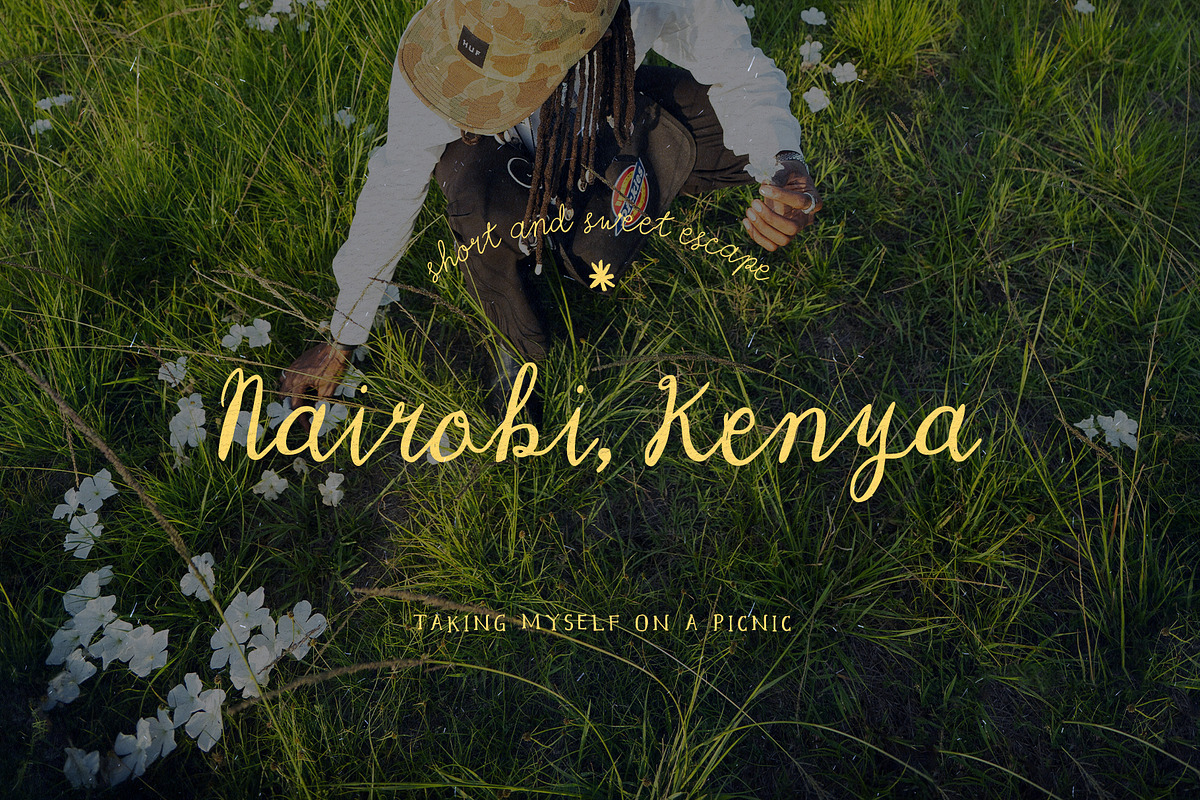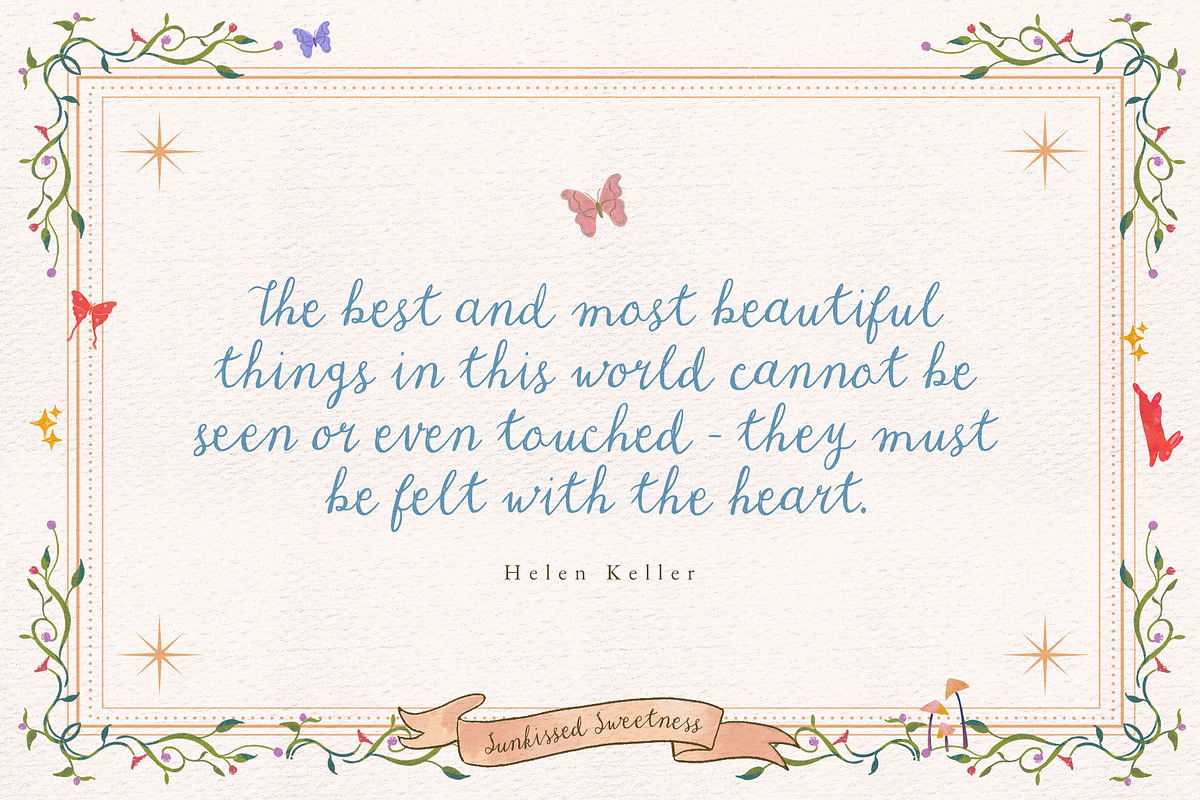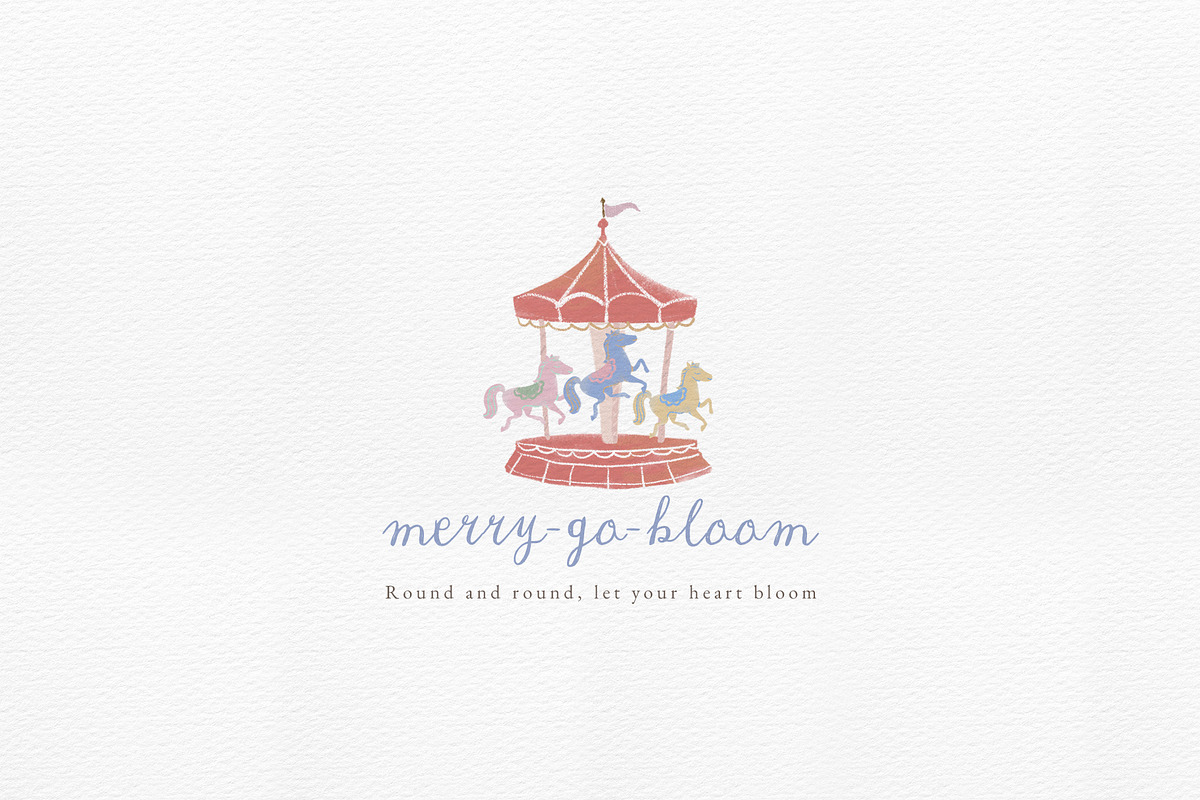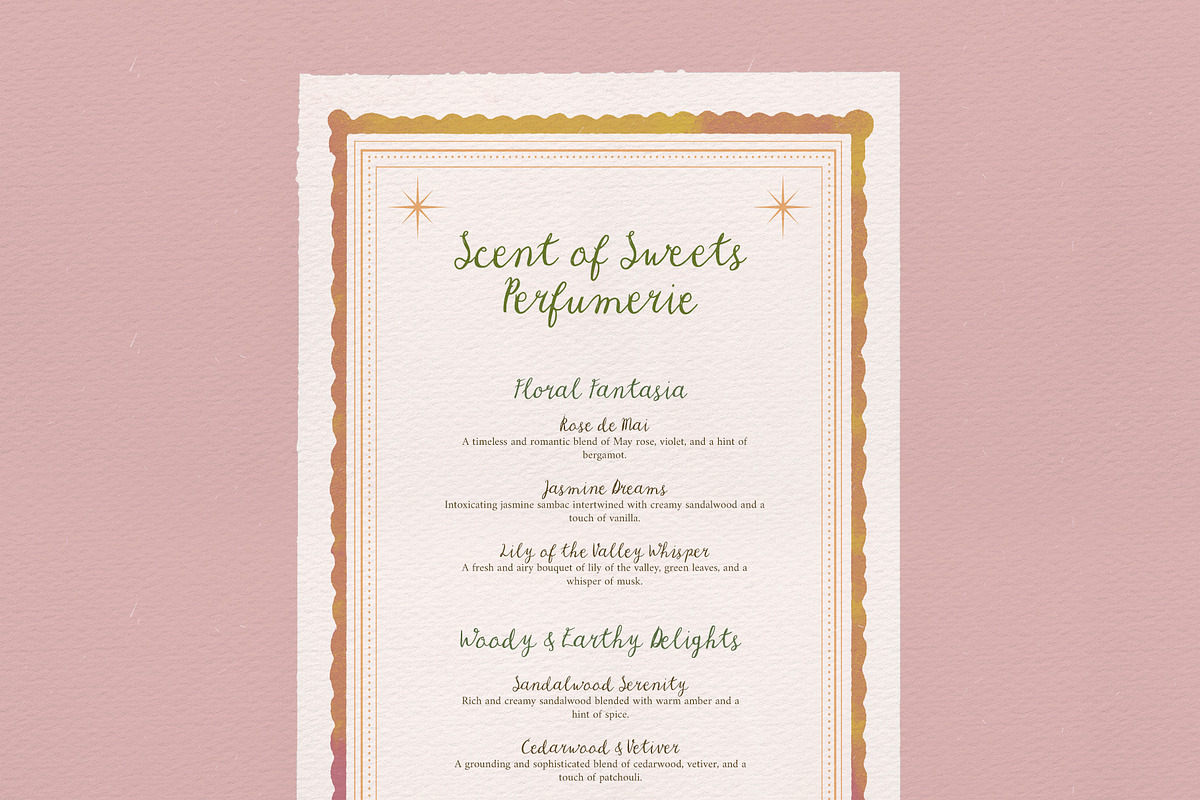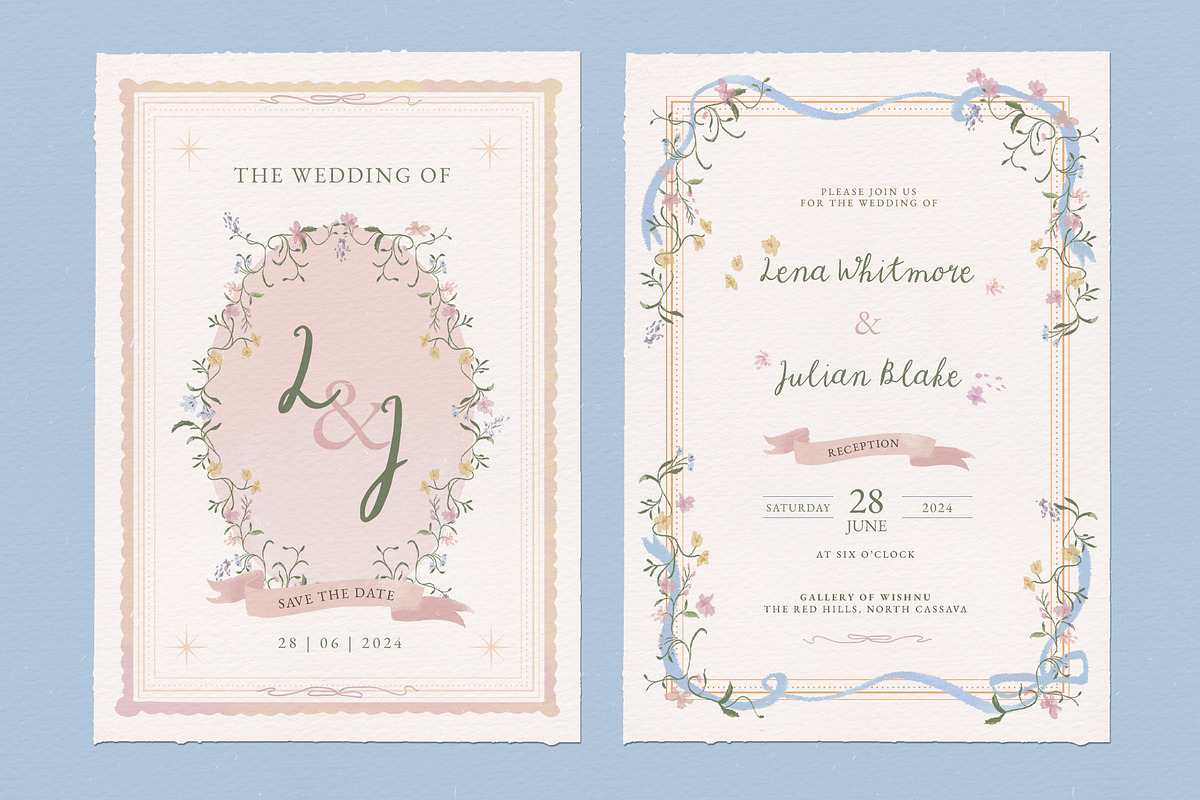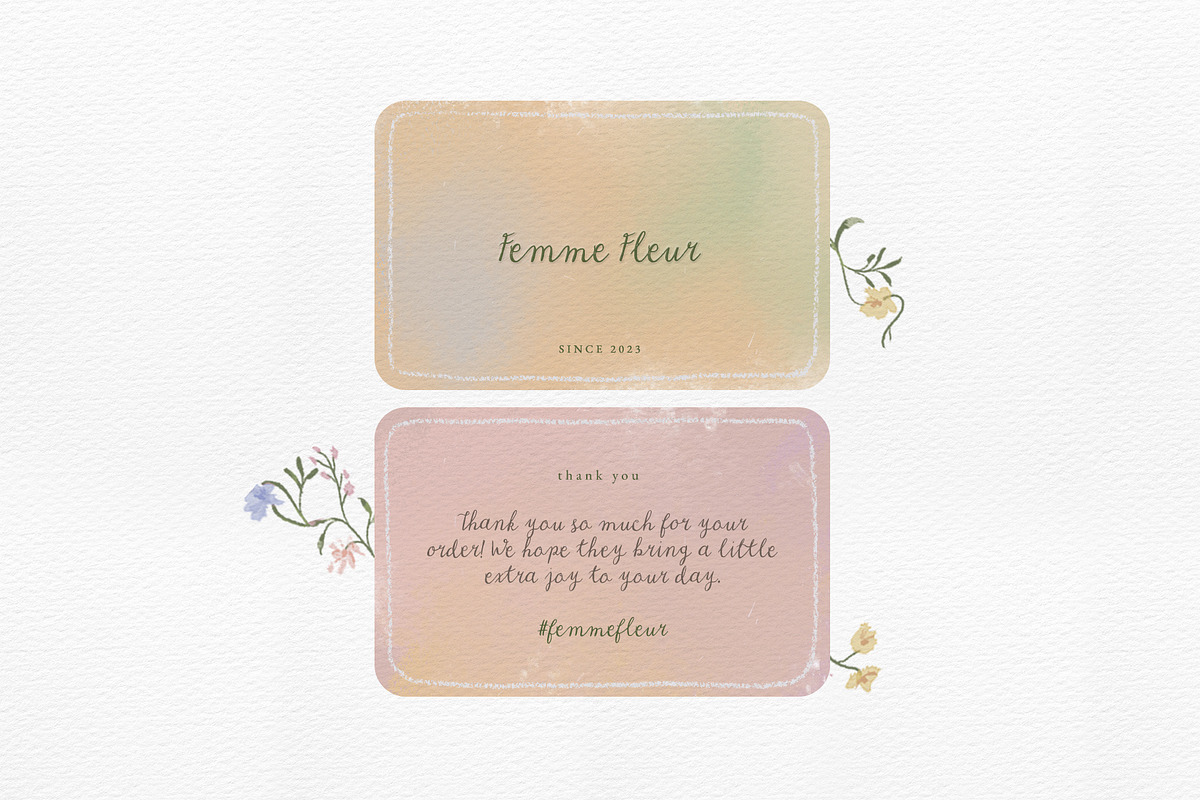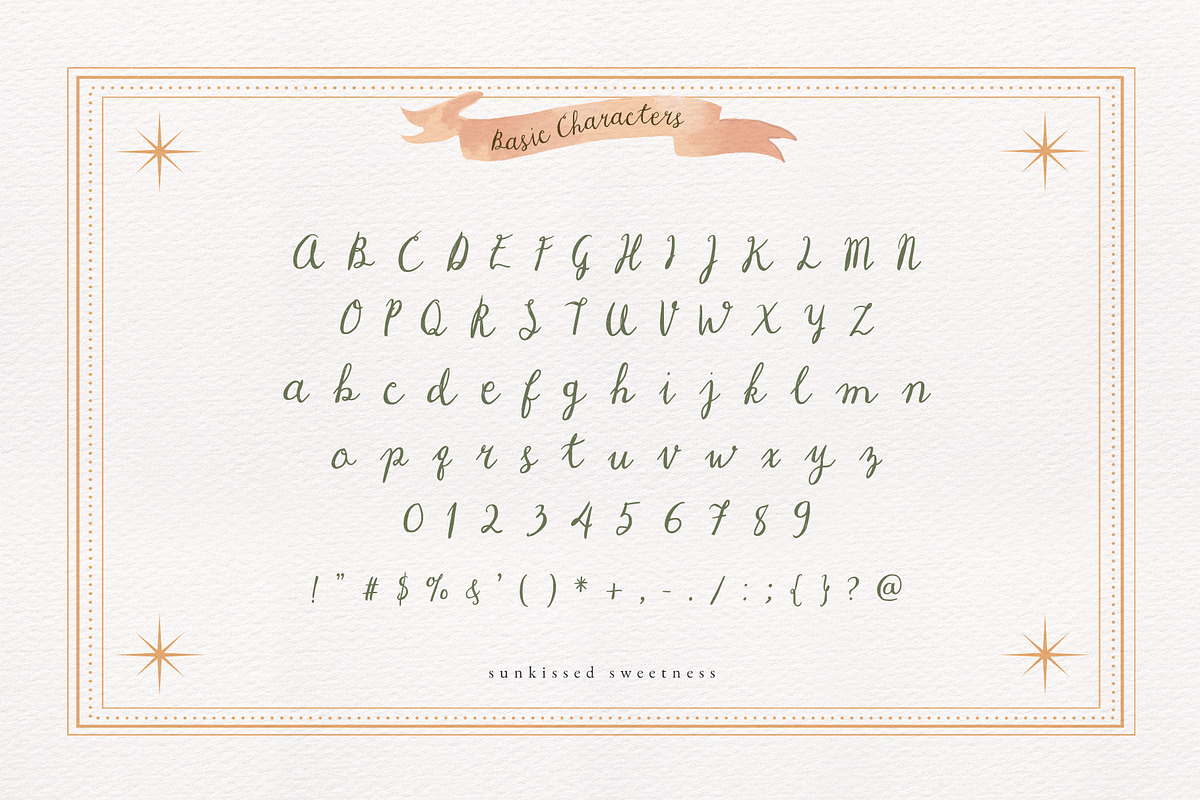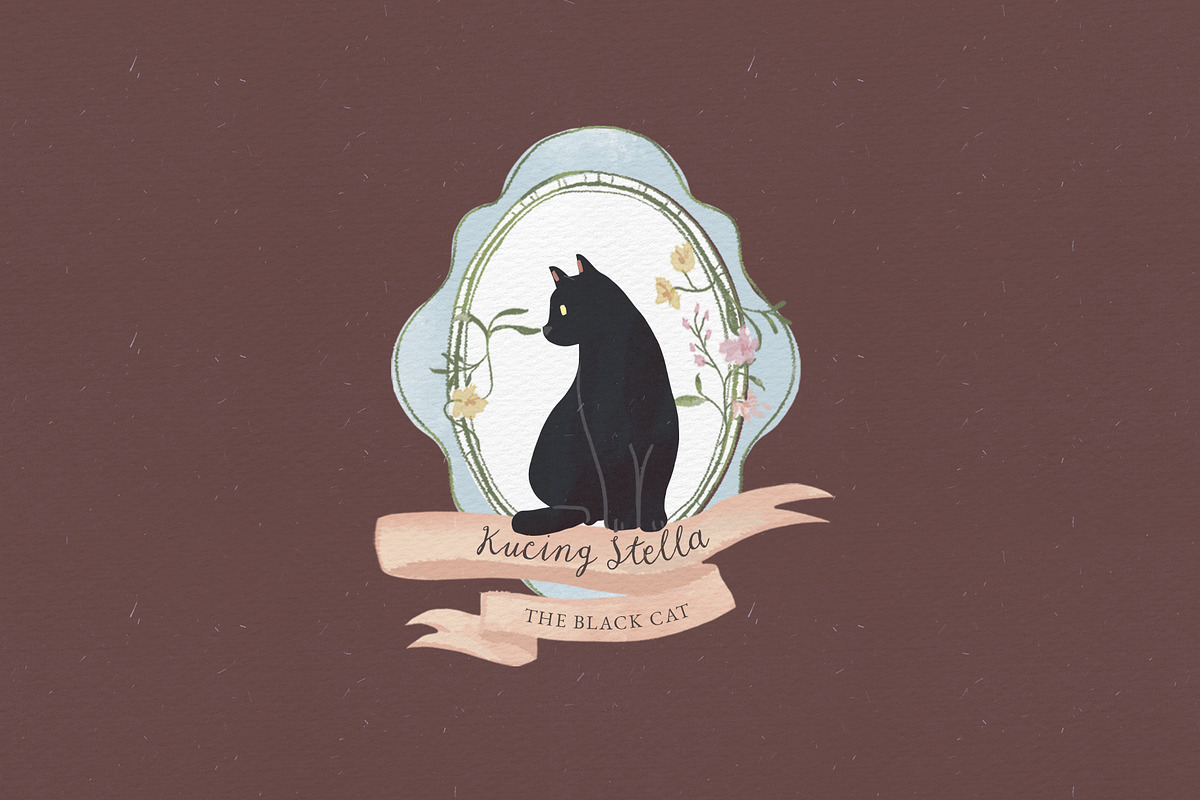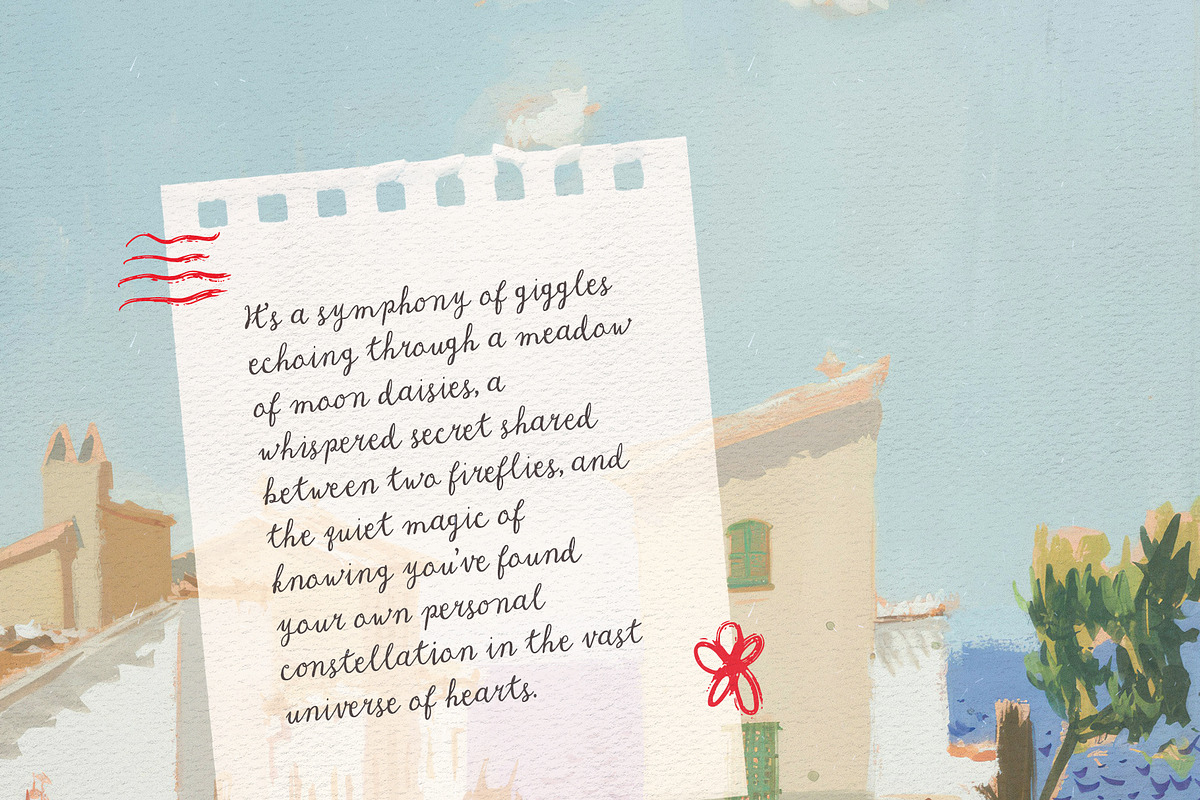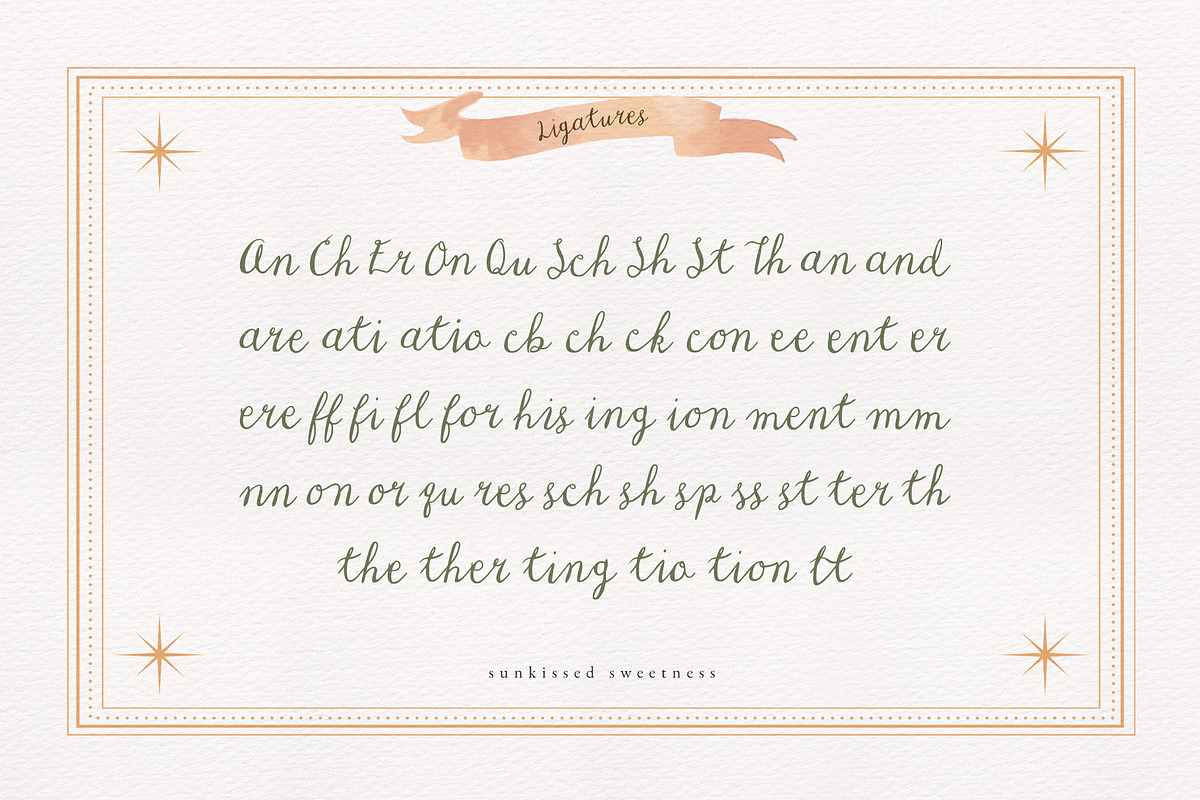
Romantic Font Sunkissed Sweetness
Sunkissed Sweetness is a charming handwritten font made for romantic designs. With its soft curves and delicate ligatures, it brings warmth and elegance to every letter. Sunkissed Sweetness Font is packed with everything you need, including uppercase and lowercase letters, numbers, punctuation, and ligatures. Multilingual support.